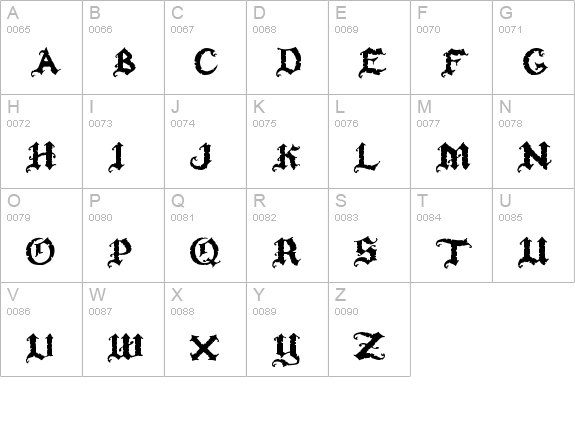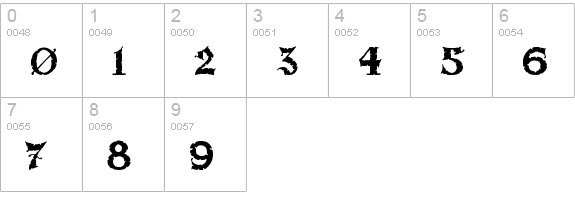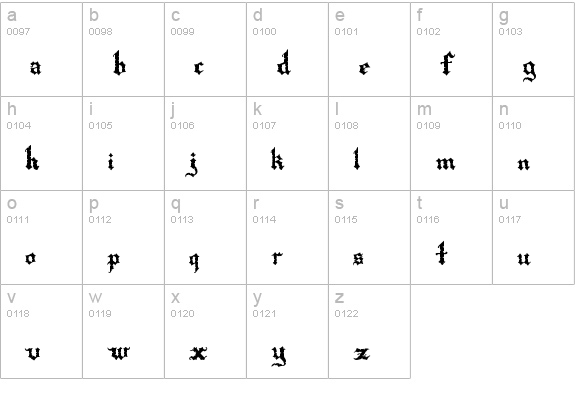
Introducing Rapscallion, a rebellious and charismatic font that embodies the spirit of adventure and mischief. With its bold and edgy letterforms, Rapscallion makes a statement like no other. This font is all about breaking the rules and embracing individuality. Designed with meticulous attention to detail, Rapscallion exudes confidence and a sense of freedom. Its unique and daring letter shapes create a visually captivating experience, demanding attention and leaving a lasting impression. Whether used for headlines, logos, or branding materials, Rapscallion adds a touch of rebelliousness to any design. But what sets Rapscallion apart from other fonts is its availability for free download at FontsMarket.com. Yes, you read that right! This bold and charismatic font is freely accessible to anyone who wants to add a touch of audacity and creativity to their projects. FontsMarket.com provides an easy and hassle-free way to get your hands on Rapscallion, making it a go-to choice for designers, artists, and anyone seeking to make a statement. So why wait? Unleash your creativity with Rapscallion and let its bold and adventurous spirit take your designs to new heights. Download it for free at FontsMarket.com and join the rebellion against ordinary typography. Embrace the audacious and set your designs apart with Rapscallion.